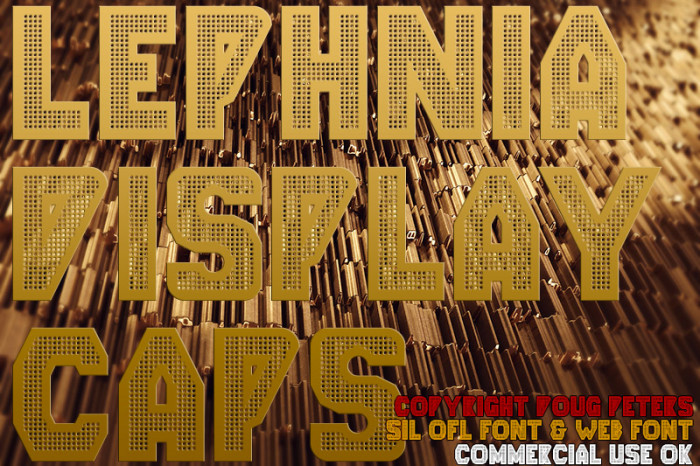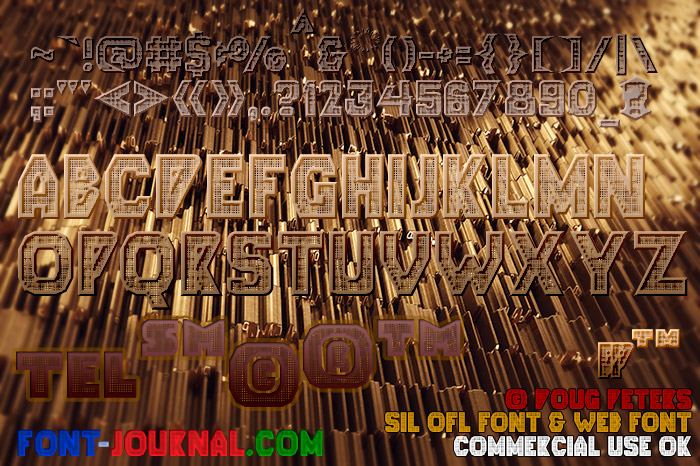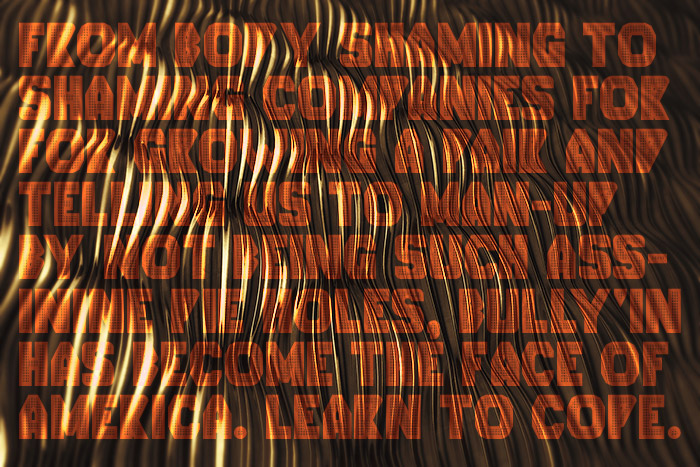
• Cloned from Vertalics originally, but not one single block remains.
This is a free font version from my commercial font family, Lephnia, which includes Lephnia Drop Caps.
Outlined novelty sans font in a black weight with a repeating pattern, or texture, which is a mesh grid. This font demands to be seen in large (poster/billboard/titling/header/headline) sizes.
Type: Sans Serif
Weight: Black
This one seems to need to be blown up to at least 2/3 in the font characters preview window because it really needs to be a big display font for headlines or posters.
The grid just gets too small when showing the full character set at 700pixels wide, so I'll create a better one for Fontstruct, later.